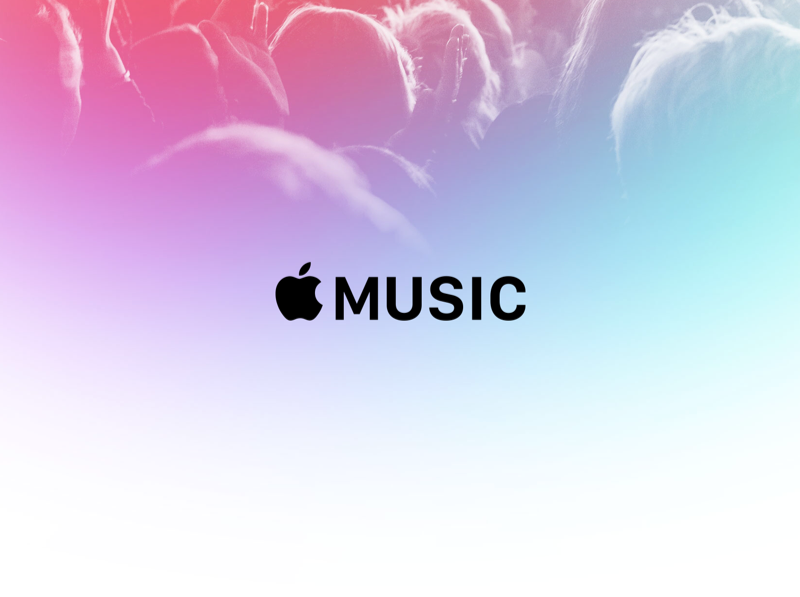
Apple Music Font Generator
Helvetica appeared for the first time in an apple product on the iphone 3g and the ipod touch.
Apple music font generator. As mentioned the text generator fonts you see are not actually fonts. To comply with apple requirements and receive the greatest benefit from your communications follow these guidelines when promoting apple music in marketing communications including advertising apps websites and printed promotions. Click to find the best 11 free fonts in the apple music style.
See the wikipedia article for the history of the apple logo and their font usage for older apple logos. What is the apple logo font. Apple also uses helvetica neuefind these fonts here.